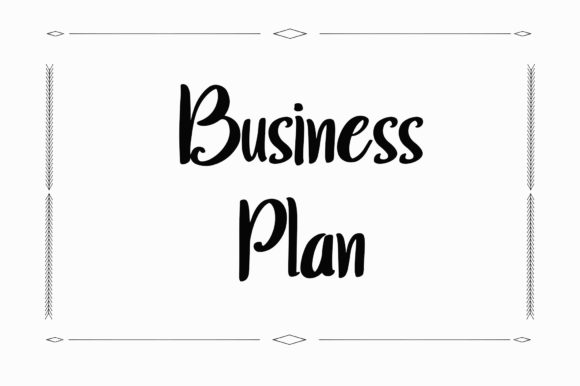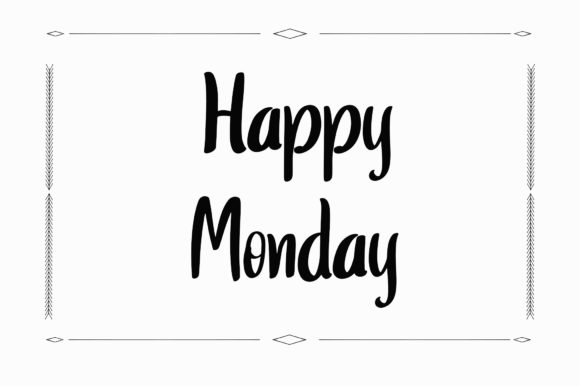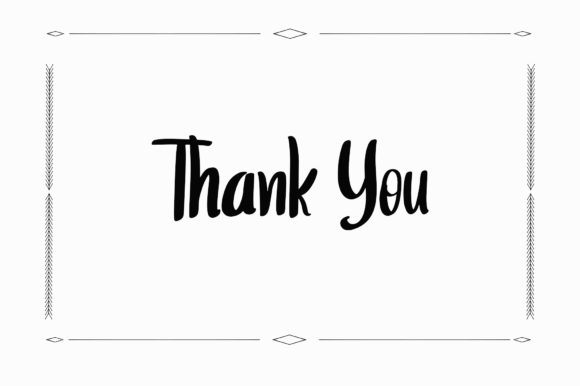
Bakery Cake Font: The Sweetest Addition to Your Design Collection
Are you on the hunt for a font that adds a dash of whimsy and fun to your designs? Look no further than the Bakery Cake font! This delightful handwritten font is sure to become your go-to for all your creative projects, from crafting and digital design to presentations and greeting cards.
What Makes Bakery Cake Font So Special?
Bakery Cake is more than just a font – it’s an experience. With its unique style and playful vibe, it’s the perfect addition to any design that needs a sprinkle of fun and personality. Whether you’re a designer, crafter, or simply someone who loves to get creative, this font is sure to inspire you to try new things and push the boundaries of your imagination.
Unique Characteristics of Bakery Cake Font
So, what sets Bakery Cake apart from other fonts? Here are just a few of its unique characteristics:
- Handwritten style: Bakery Cake has a distinctly handwritten feel that’s both personal and approachable.
- Unique lettering: Each letter has its own special charm and character, making it perfect for designs that need a touch of whimsy.
- Playful vibe: This font is all about fun and creativity – it’s the perfect antidote to boring, generic designs.
Uses for Bakery Cake Font
The possibilities are endless when it comes to using Bakery Cake font. Here are just a few ideas to get you started:
- Crafts: Use Bakery Cake to add a personal touch to your craft projects, from scrapbooking and card making to DIY gifts and decorations.
- Digital design: Add a playful touch to your digital designs, from social media graphics and blog posts to presentations and email newsletters.
- Greeting cards: Create one-of-a-kind greeting cards for special occasions, from birthdays and holidays to weddings and graduations.
- Presentations: Use Bakery Cake to add a dash of personality to your presentations and make them more engaging and memorable.
Why Designers and Crafters Love Bakery Cake Font
So, why do designers and crafters love Bakery Cake font? Here are just a few reasons:
- Easy to read: Despite its playful style, Bakery Cake is surprisingly easy to read, making it perfect for designs that need to communicate a message.
- Versatile: This font can be used for a wide range of projects, from formal designs to informal ones.
- Fun to use: Let’s face it – Bakery Cake is just plain fun to use! It’s the perfect way to add some personality and whimsy to your designs.
Tips for Using Bakery Cake Font
Here are a few tips for getting the most out of Bakery Cake font:
- Experiment with different colors: Bakery Cake looks great in a wide range of colors, from bright and bold to soft and pastel.
- Pair it with other fonts: Try pairing Bakery Cake with other fonts to create a unique and eye-catching design.
- Use it sparingly: While Bakery Cake is a fun font, it can be overwhelming if used too much. Try using it sparingly to add a touch of personality to your design.
In conclusion, Bakery Cake font is a fun and unique addition to any design collection. With its playful vibe, handwritten style, and versatile uses, it’s the perfect font for designers and crafters who want to add a dash of personality to their projects. So why not give it a try and see how it can bring your designs to life?